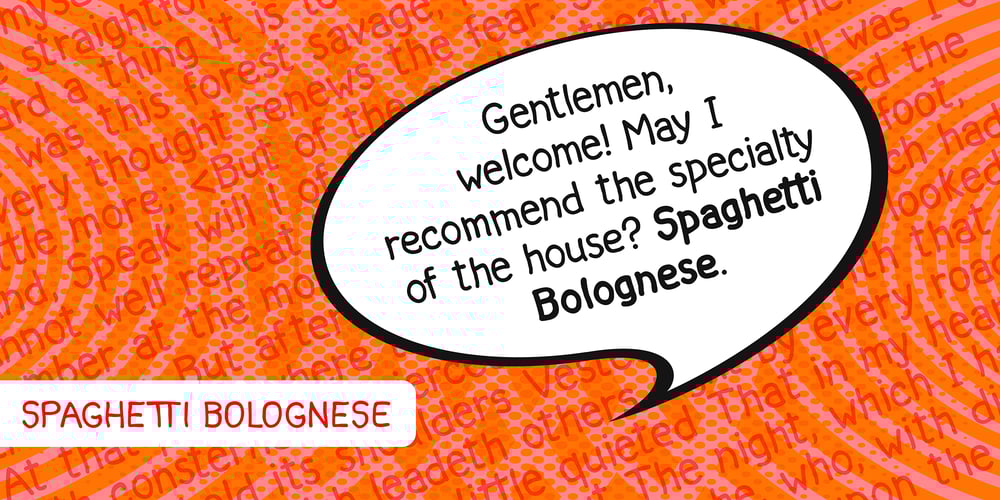
Spaghetti Bolognese Font Family was designed by Paolo Lo Galbo and published by Comics Font Store. Spaghetti Bolognese contains 4 styles and family package options. SPAGHETTI BOLOGNESE is a versatile, discreetly smooth and slightly childlike font, reminiscent of handwriting. It is ideal for authorial and commercial comics and has a lowercase version. The stroke features little modulation, with low or no contrast and is made with a digital brush. The height of the lowercase makes it highly legible and clear.